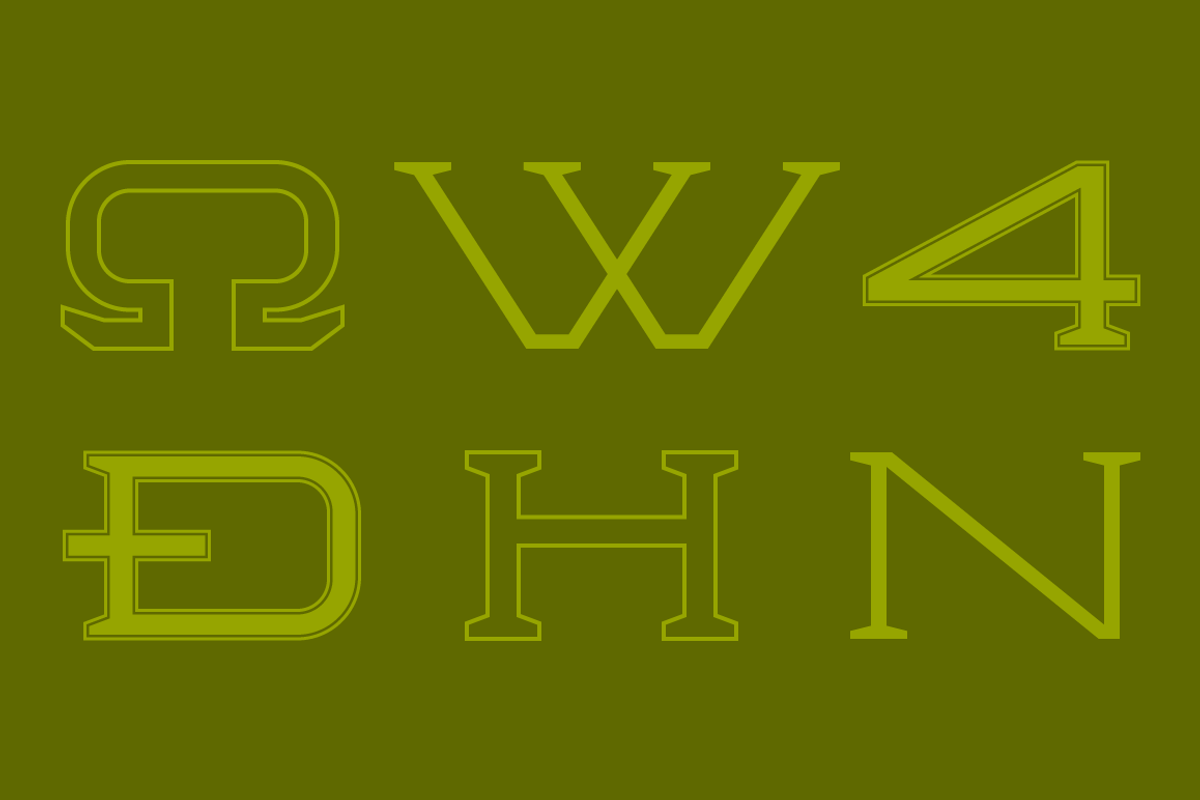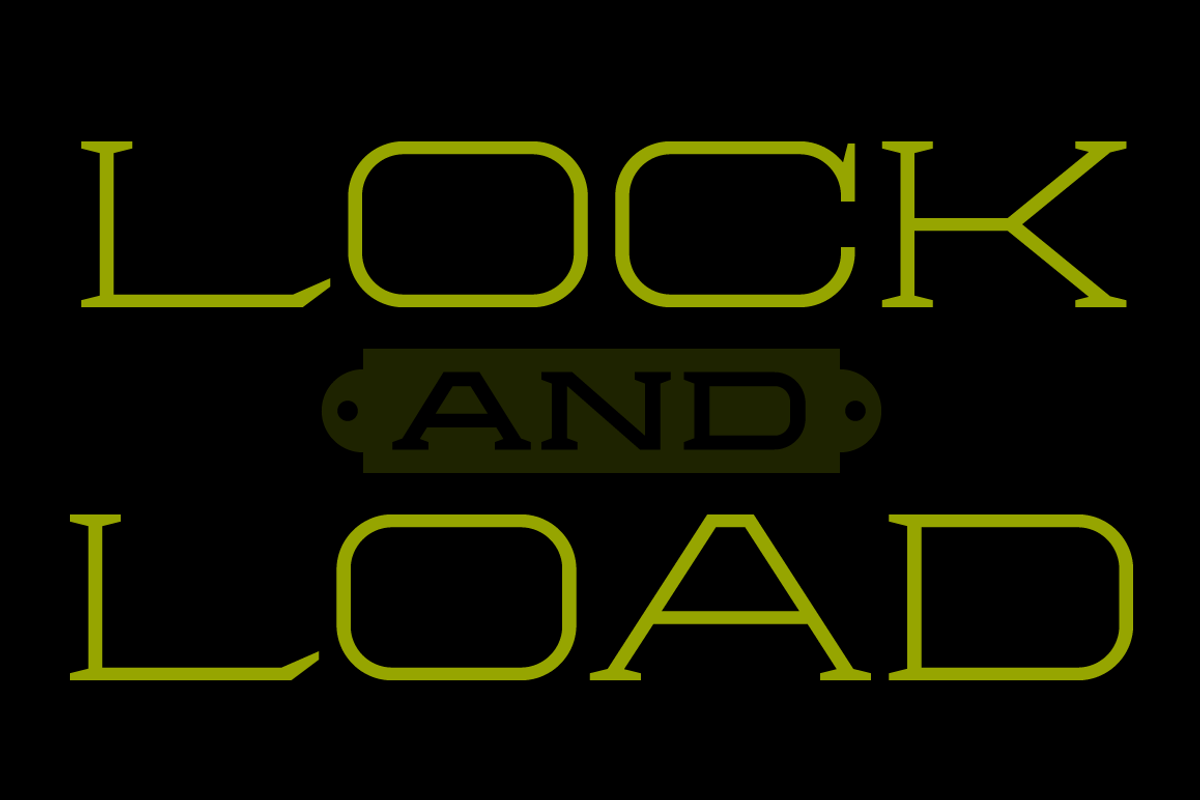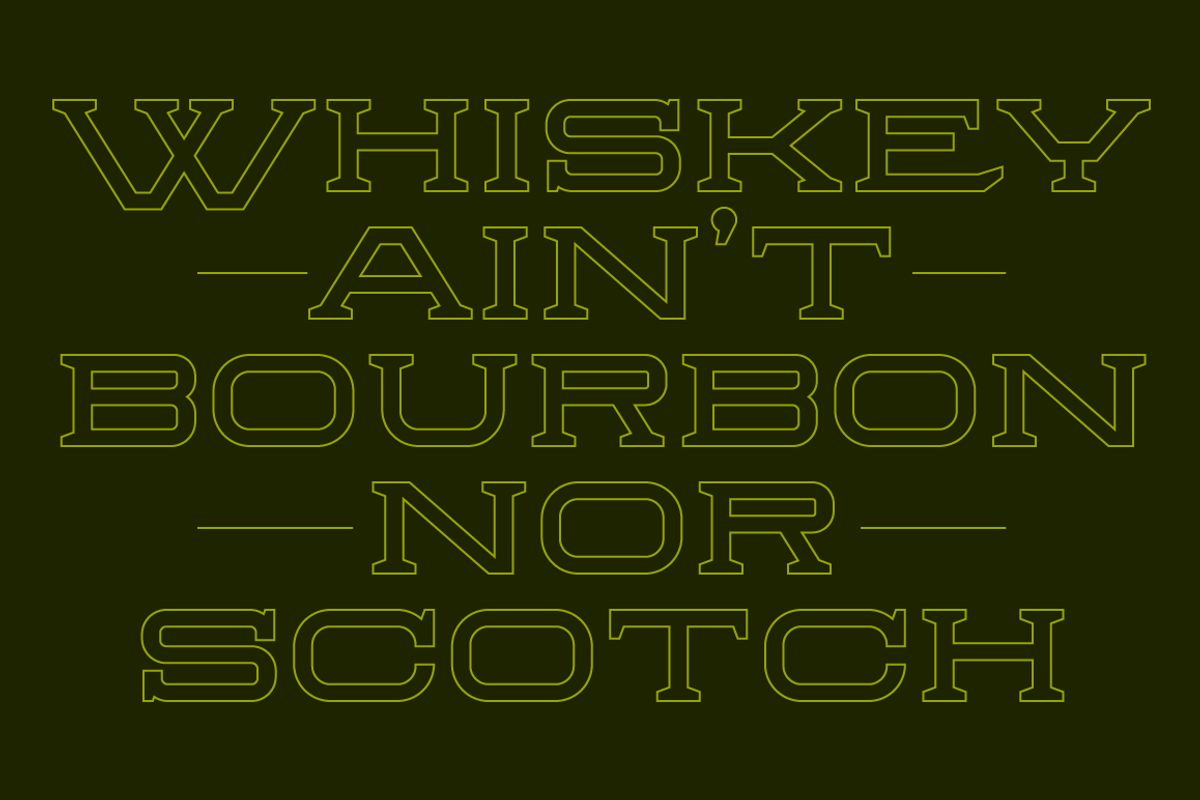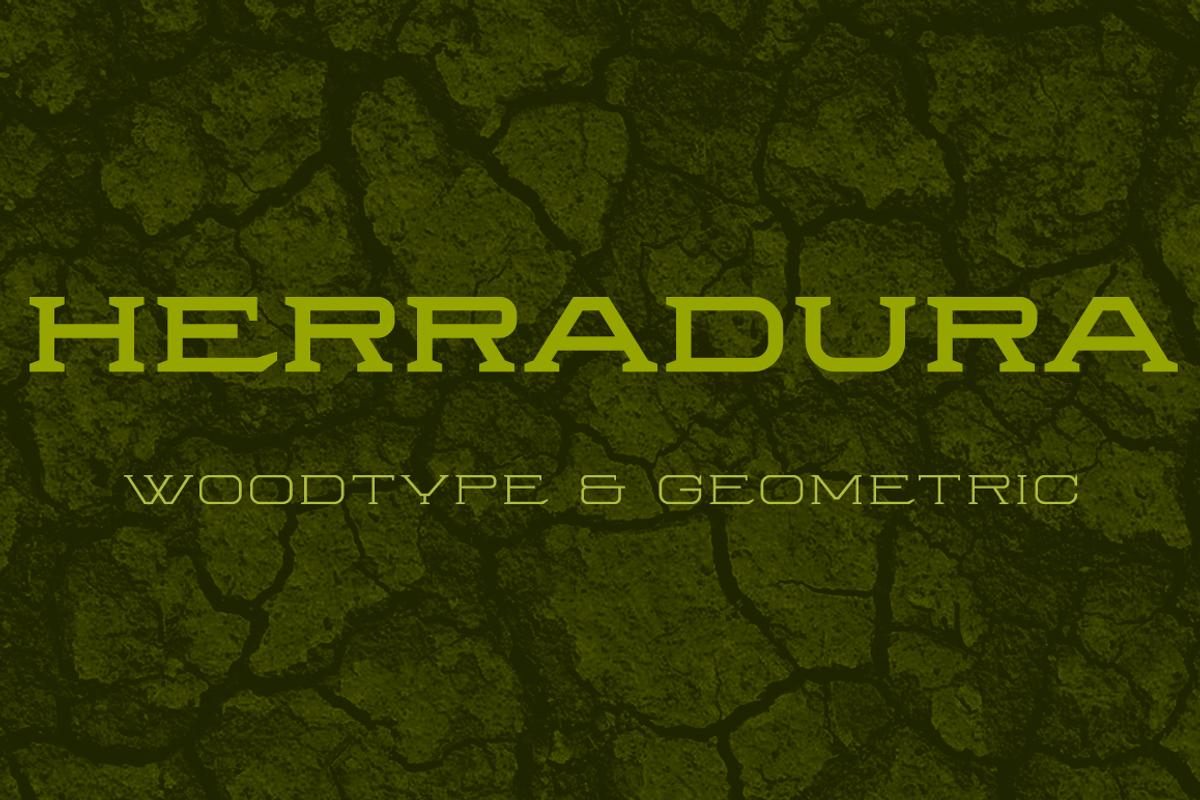
Herradura Font Family
Herradura Font Family by Graviton Font Foundry is a font selected for branding, posters, packaging, typography.
- Herradura consists of 8 styles including 4 shadowed styles, each containing framed characters and endings.
- Herradura Inline Regular
- Herradura Inline Shadowed Regular
- Herradura Light Regular
- Herradura Light Shadowed Regular
- Herradura Outline Regular
- Herradura Outline Shadowed Regular
- Herradura Solid Regular
- Herradura Solid Shadowed Regular
Herradura Font Family by Graviton Font Foundry fits naturally into Branding, posters, packaging, typography.